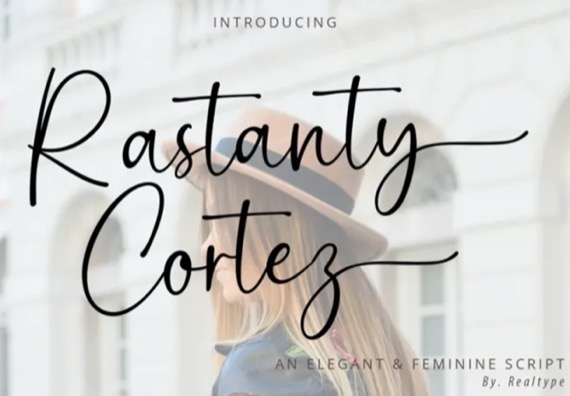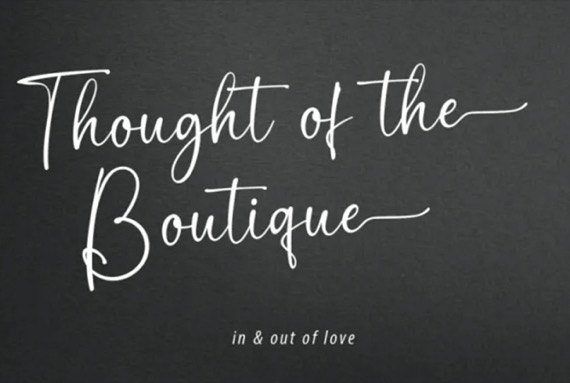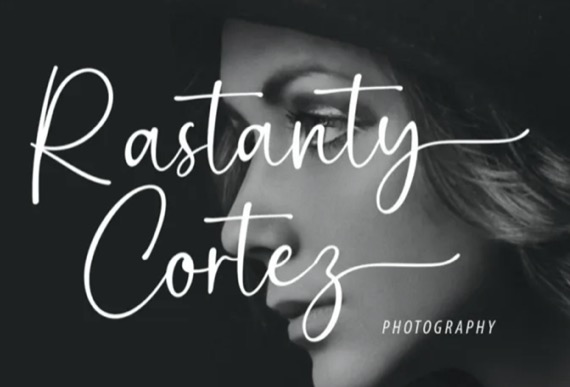
Rastanty Cortez is a cool and versatile handwritten script font family that was designed by Alam Syahril and published by Realtype. Rastanty Cortez consists of sophisticated, elegant, classy and modern handwriting. With a little dirty curvature and made from the typography of new trends, this font will give you a design that looks fresh and modern. Rastanty Cortez, with a soft style and elegant nuances, classy and natural, is perfect to get a more charismatic impression or give a unique touch to your projects and branding, greeting cards, wedding, banner, name card, lettering, fonts pairing, etc. Try mixing your design with this font. Don’t hesitate to pair it with serif or serif in your work idea. Find interesting layouts to complement your project.
Rastanty Cortez Handwritten Script Font
Designer: Alam Syahril; Publisher: Realtype